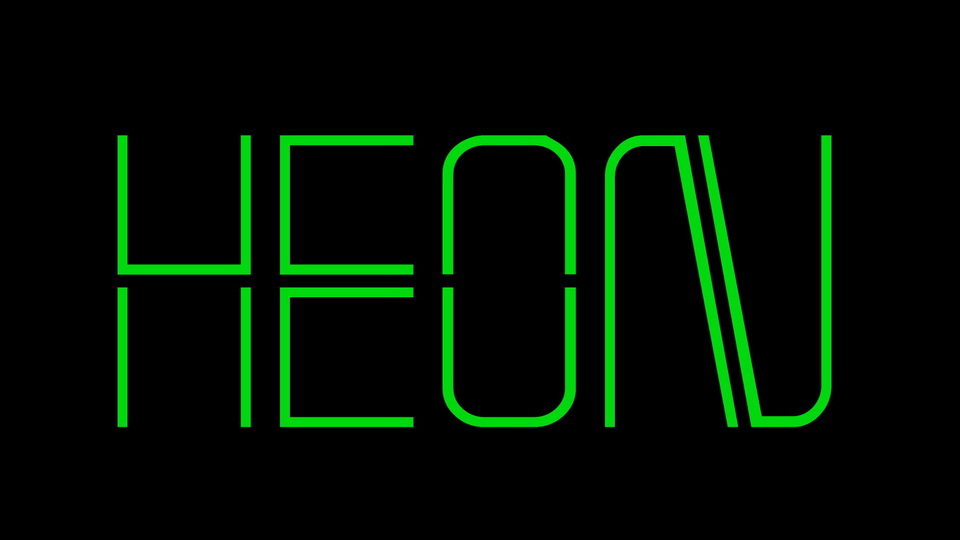
Download Heon font, a modern display typeface inspired by neon signage. With its futuristic look Heon font works best at large sizes, is suitable for headlines and posters and technical typography.
Designer: DaeDsgn